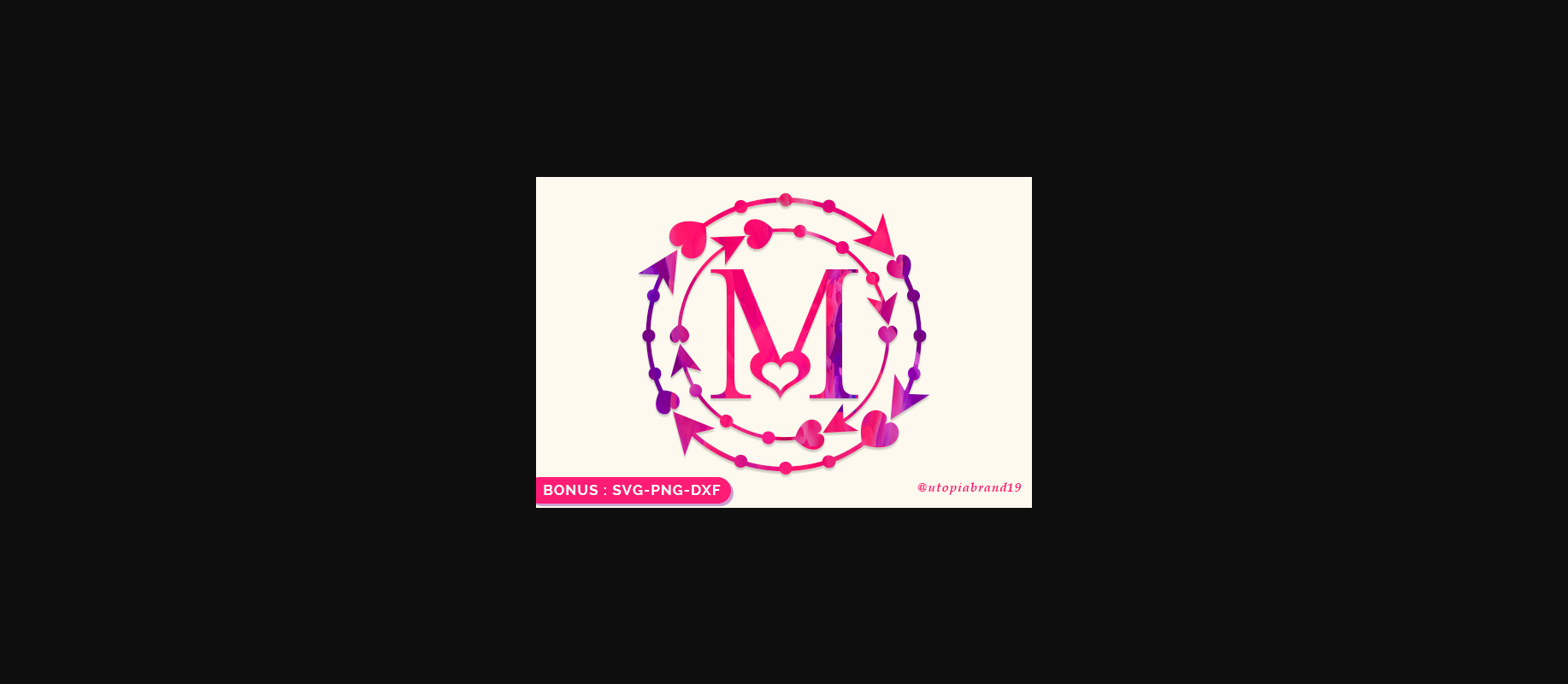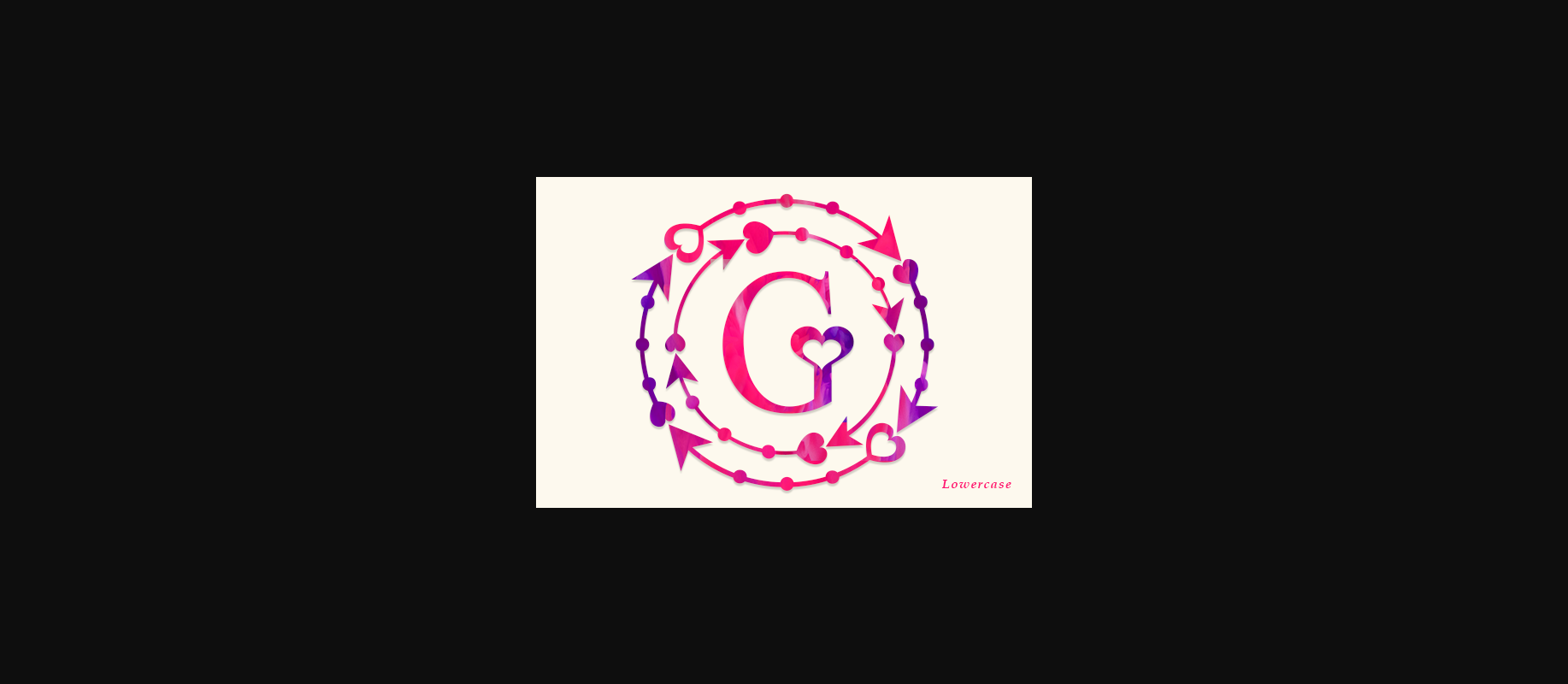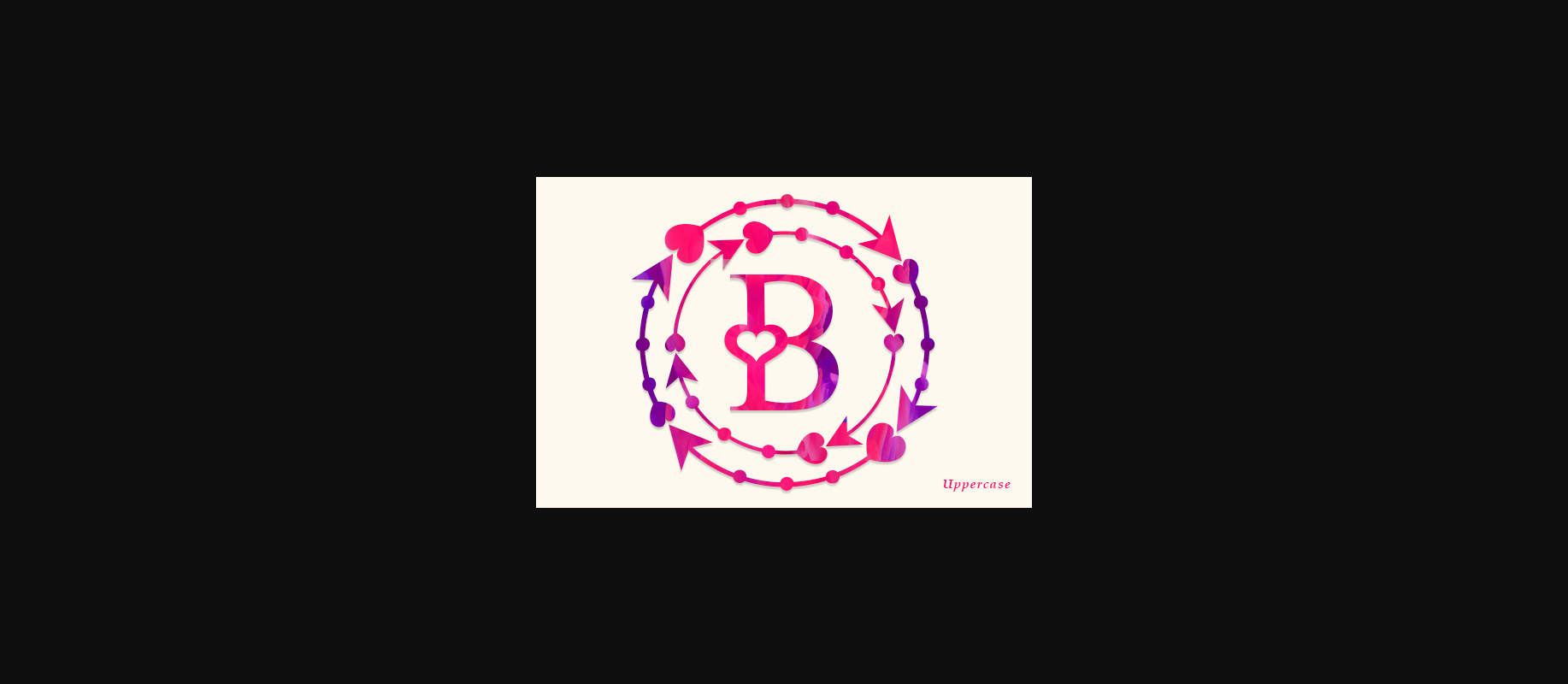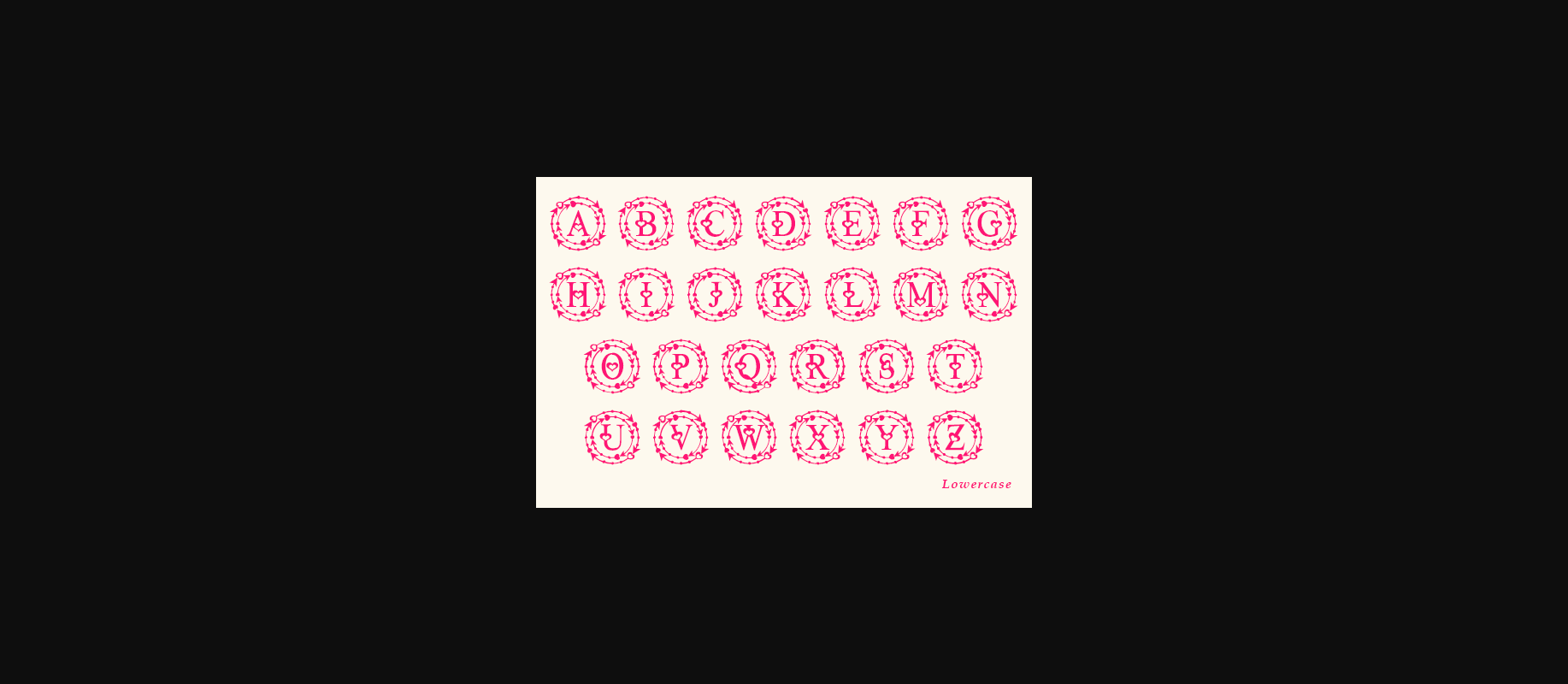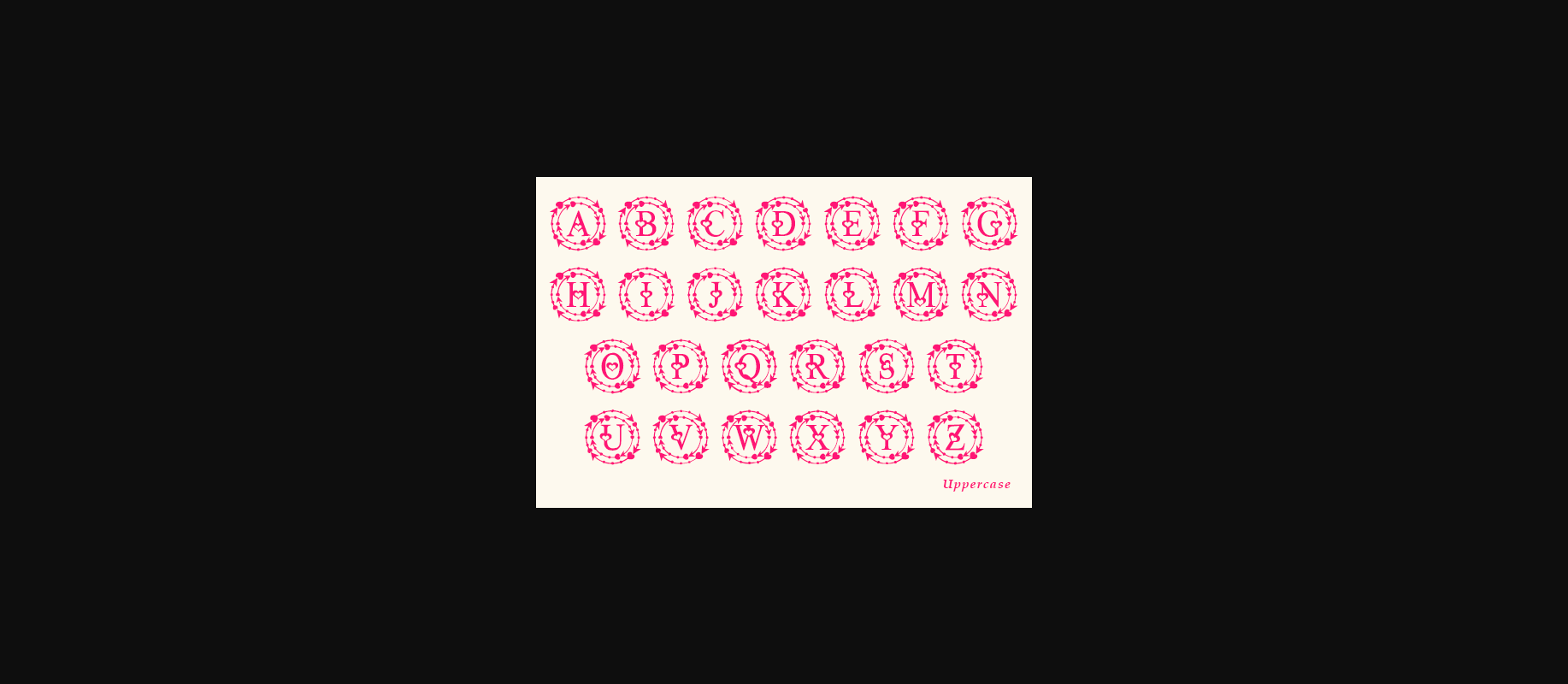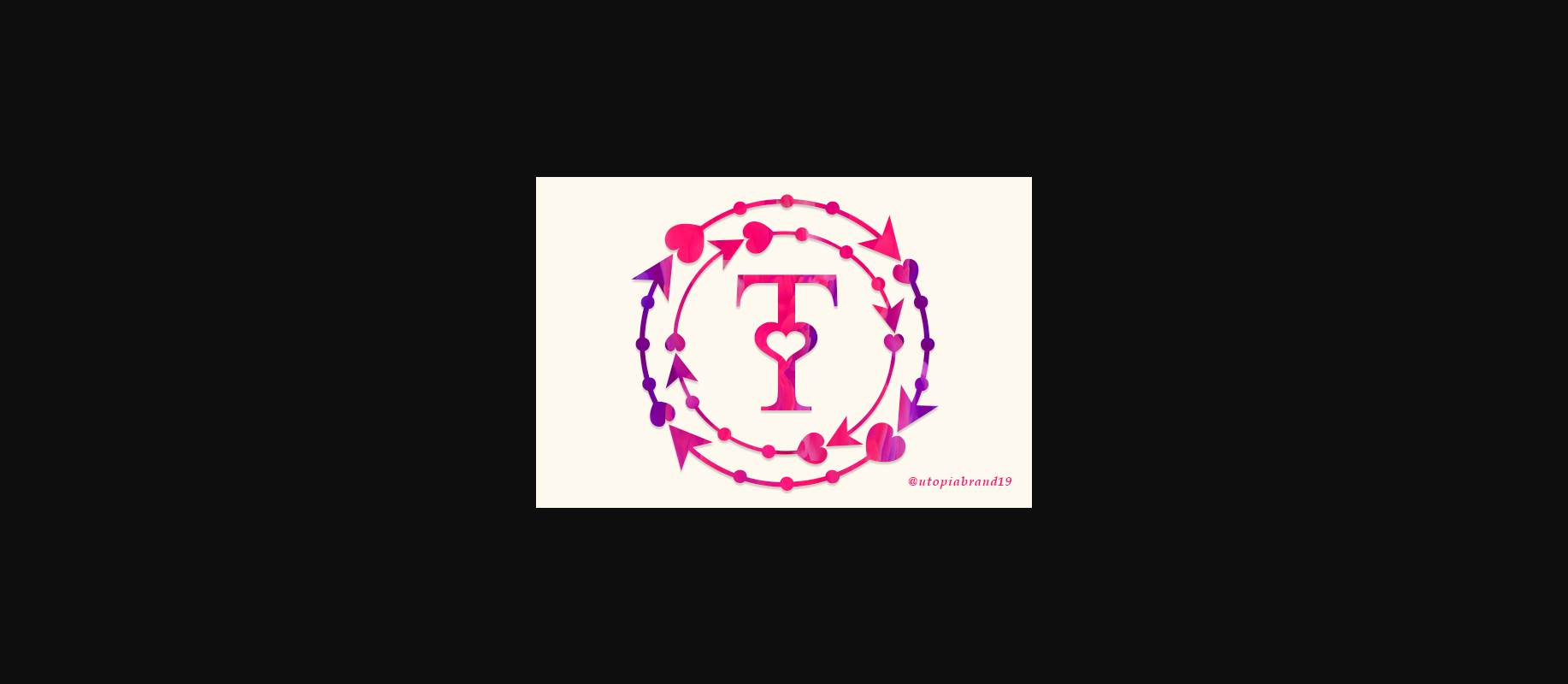
About Mommy Monogram Font
Mommy Monogram is an elegant decorative font, featuring lovely heart themed ornaments. Fall in love with its authentic feel and use it to create gorgeous letters, beautiful stationary art, eye-catching social media posts, and cute greeting cards.